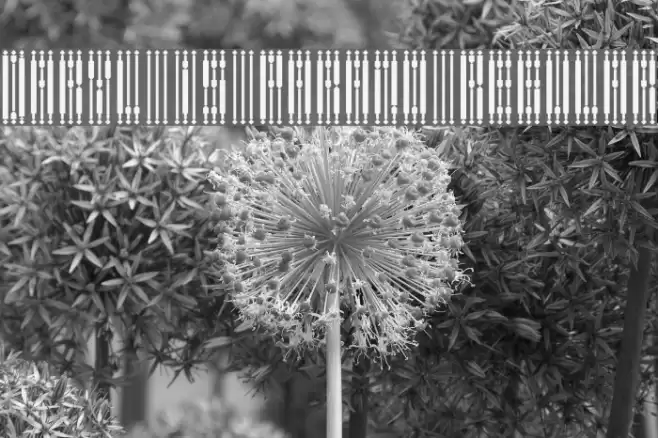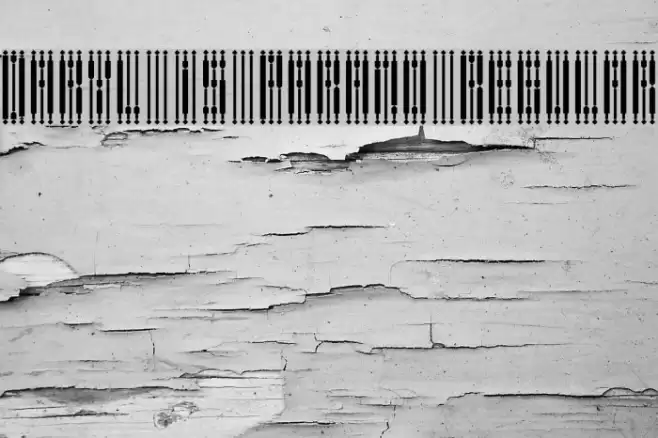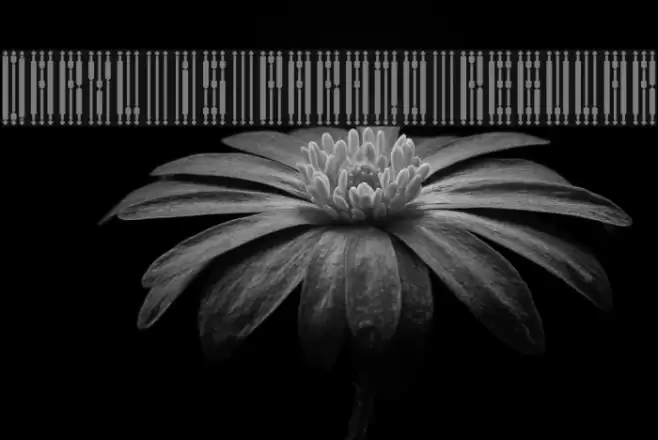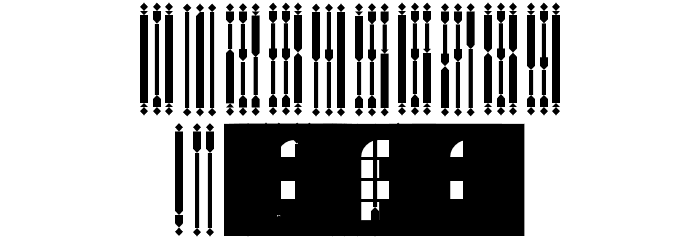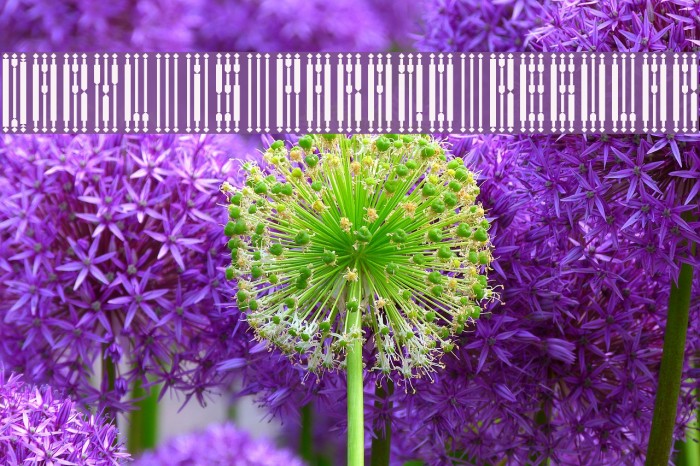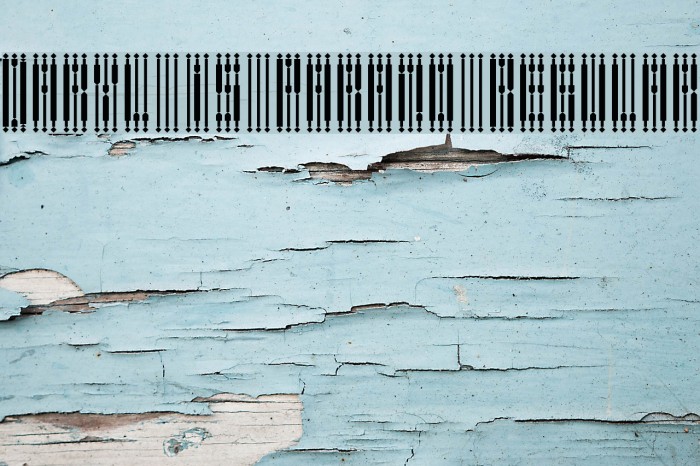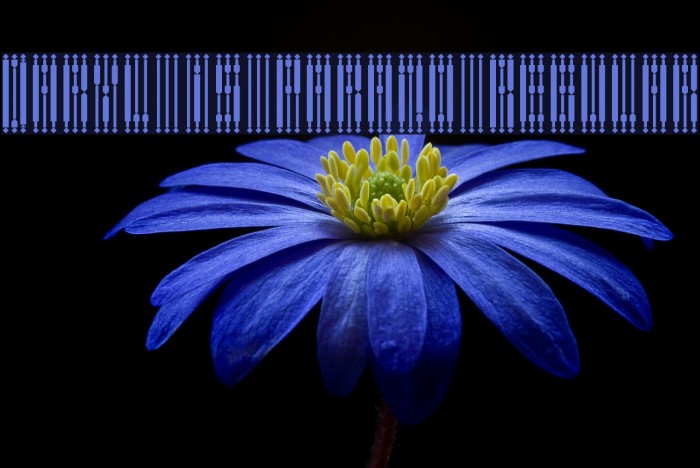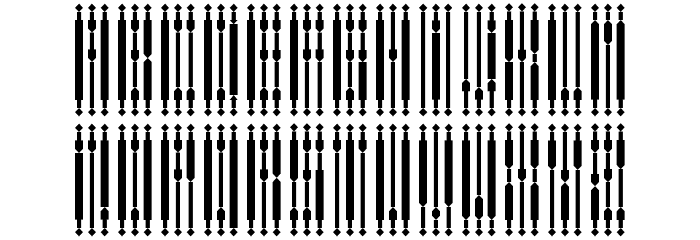
Daryl is Parano Regular Font
Daryl is Parano Regular Description
This font features a highly decorative and unique design, characterized by elongated vertical strokes and intricate geometric patterns. Each character is composed of a series of vertical lines interspersed with small diamond shapes, creating a visually striking and complex appearance. The font's style is reminiscent of abstract art, with a modern twist that makes it stand out. Its intricate details and bold presence make it suitable for artistic and creative projects where a distinctive look is desired.
A decorative font with elongated vertical strokes and geometric patterns from Uncategorized fonts.
- Proposed Projects: Ideal for artistic posters, album covers, and branding that requires a unique and eye-catching design.
- Use Case: Logos, Headlines, Artistic projects